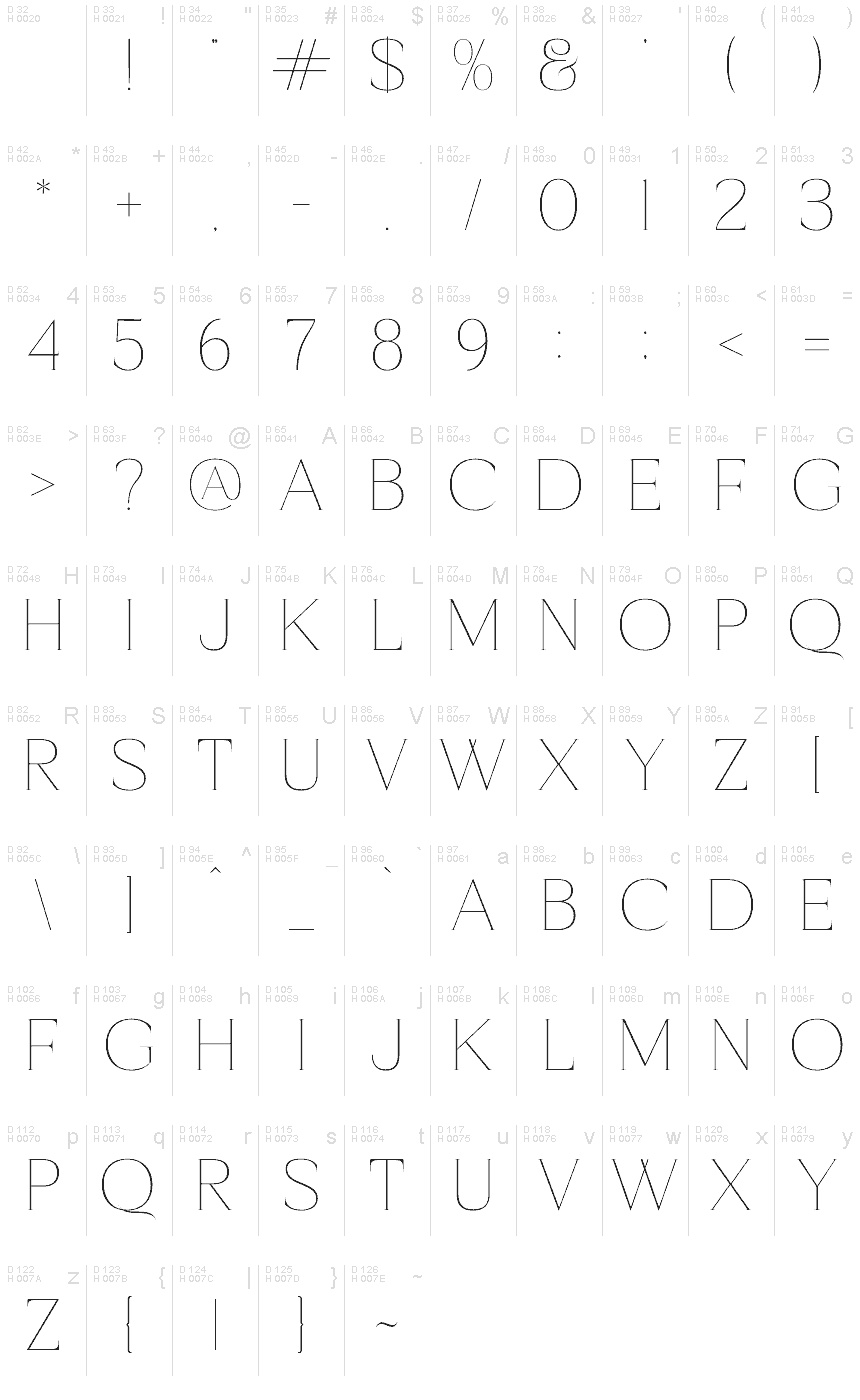
Mochreh
Mochreh font by Storytype Studio is an elegant, refined design that captures a minimalist yet sophisticated essence. This light serif font features contemporary influences with geometric touches, presenting a balanced and visually appealing appearance. Ideal for communicating elegance and sophistication, this typeface is free to download and 100% useful in visual identity projects.
Enjoy Mochreh for flawless logos, branding designs, headings, invitations/ greeting cards, packaging designs for fashion products or jewelry brands. The font will also perfectly execute magazine/ book covers, advertisements signs, high-end product visuals or even websites. Get out there and create with it!